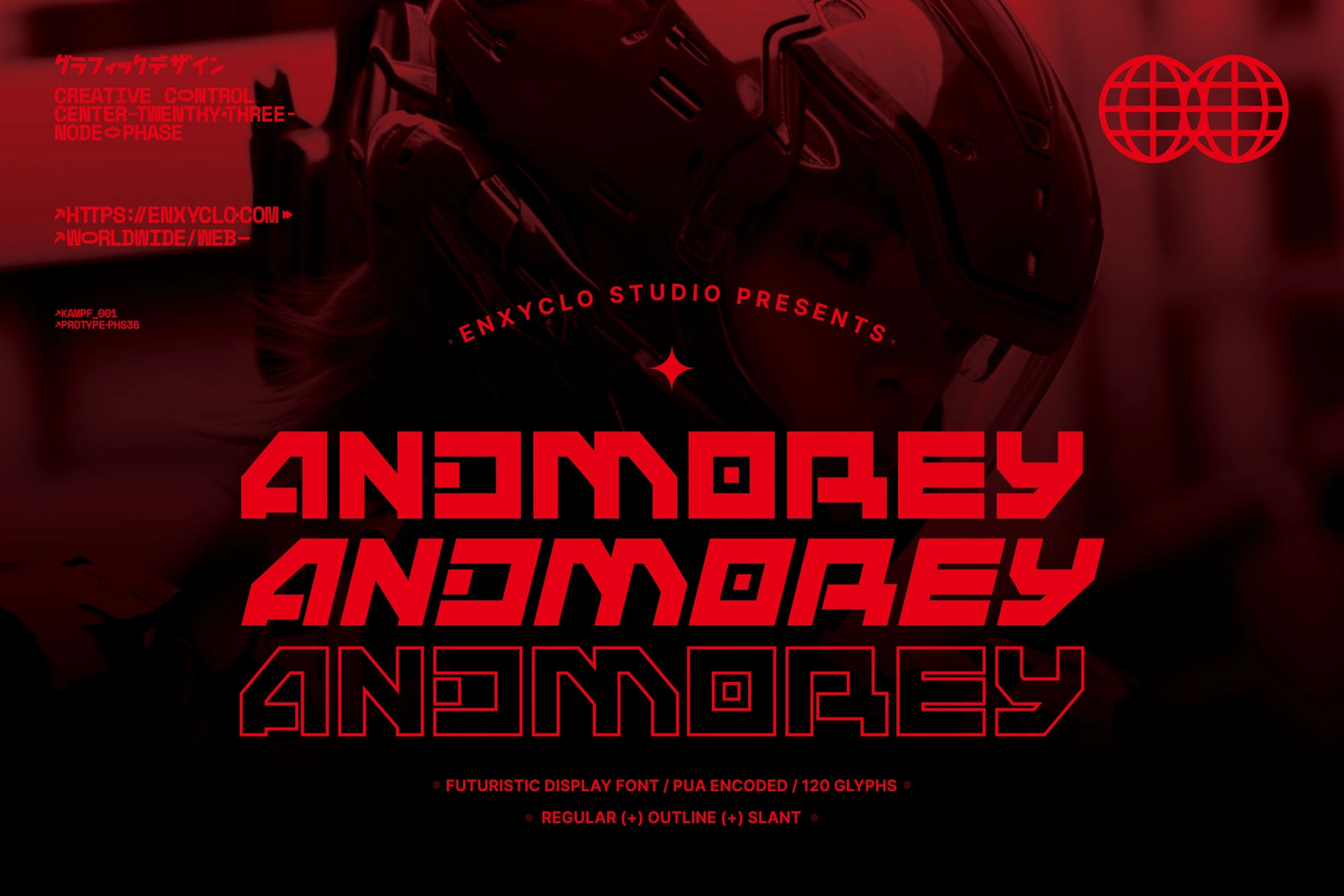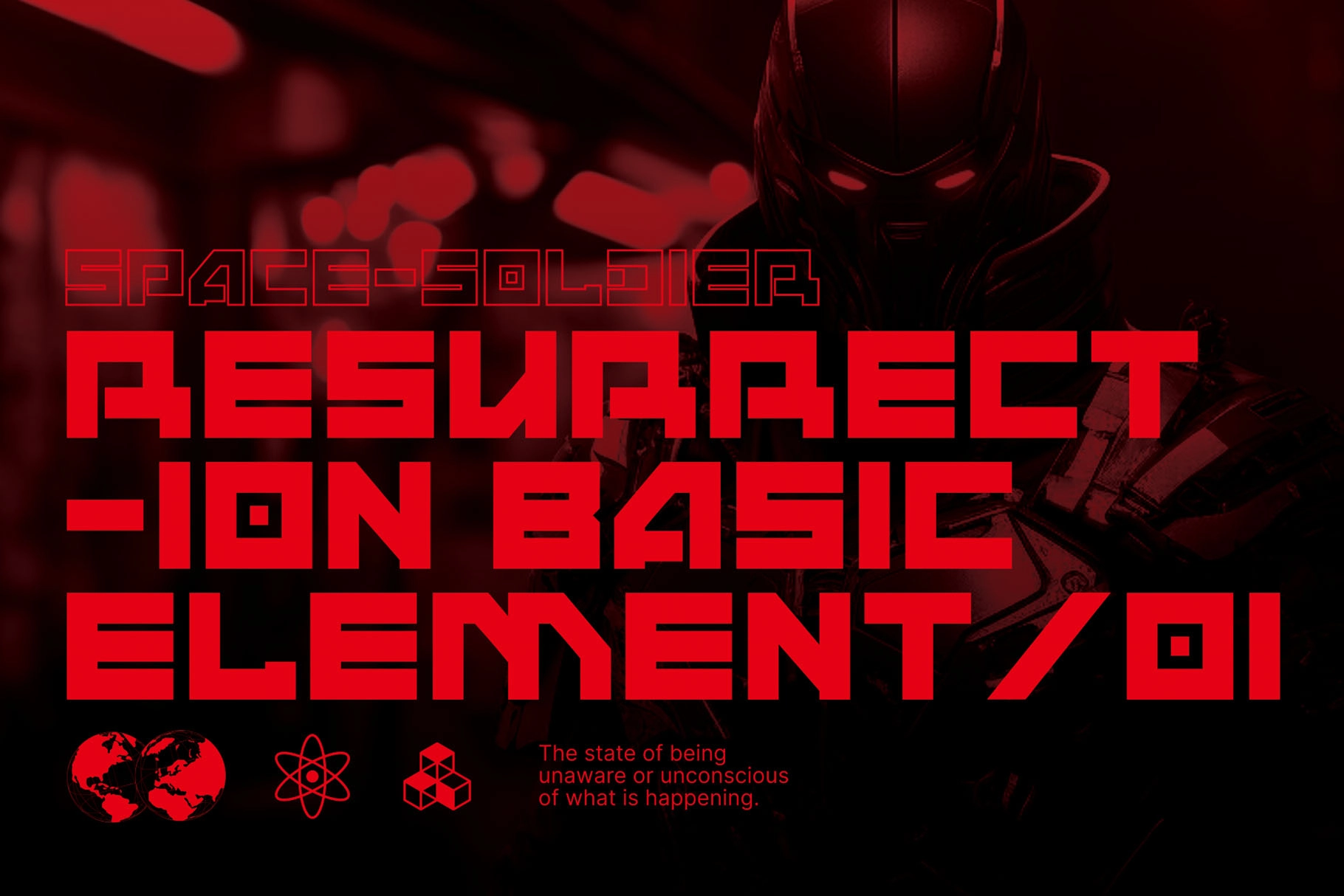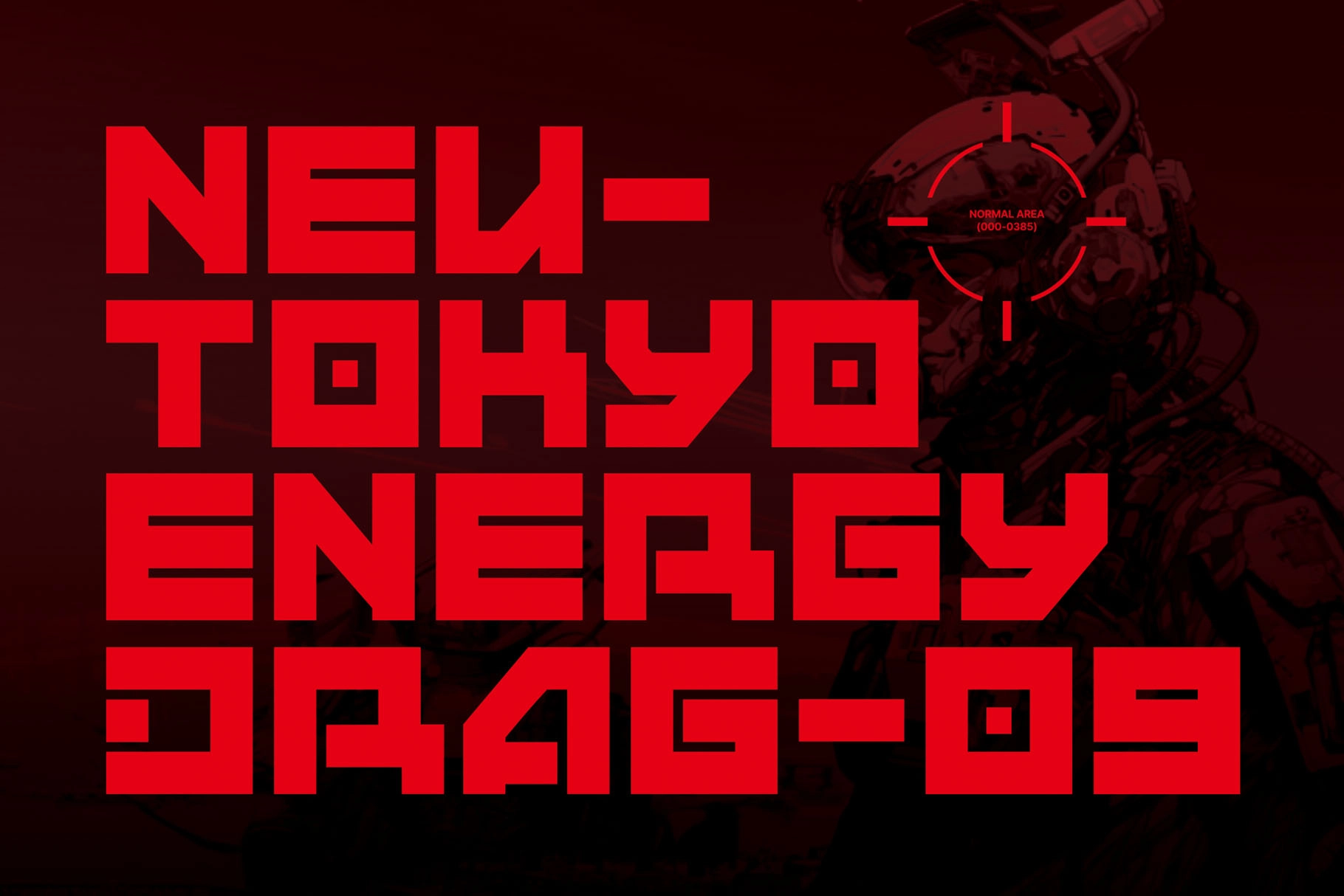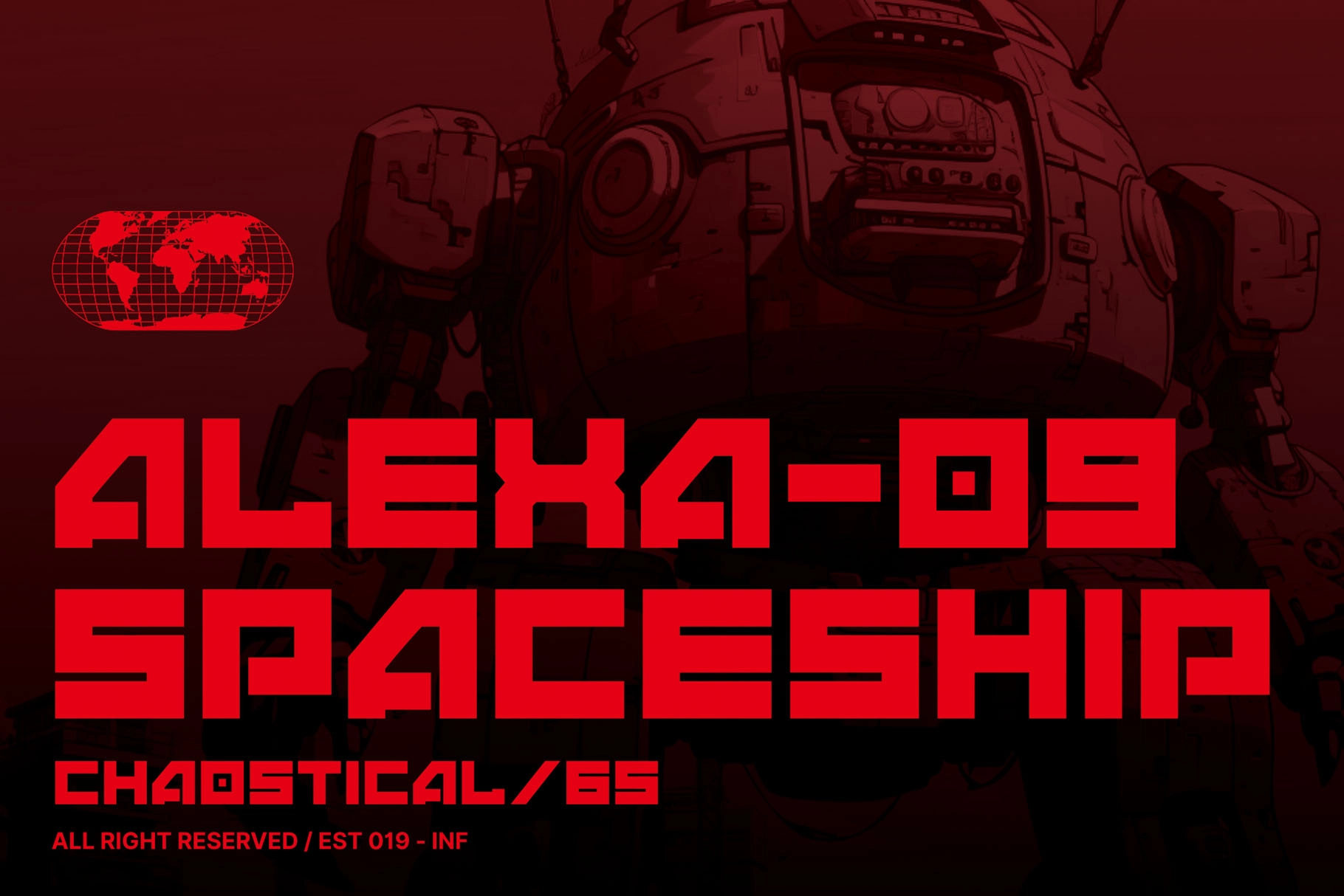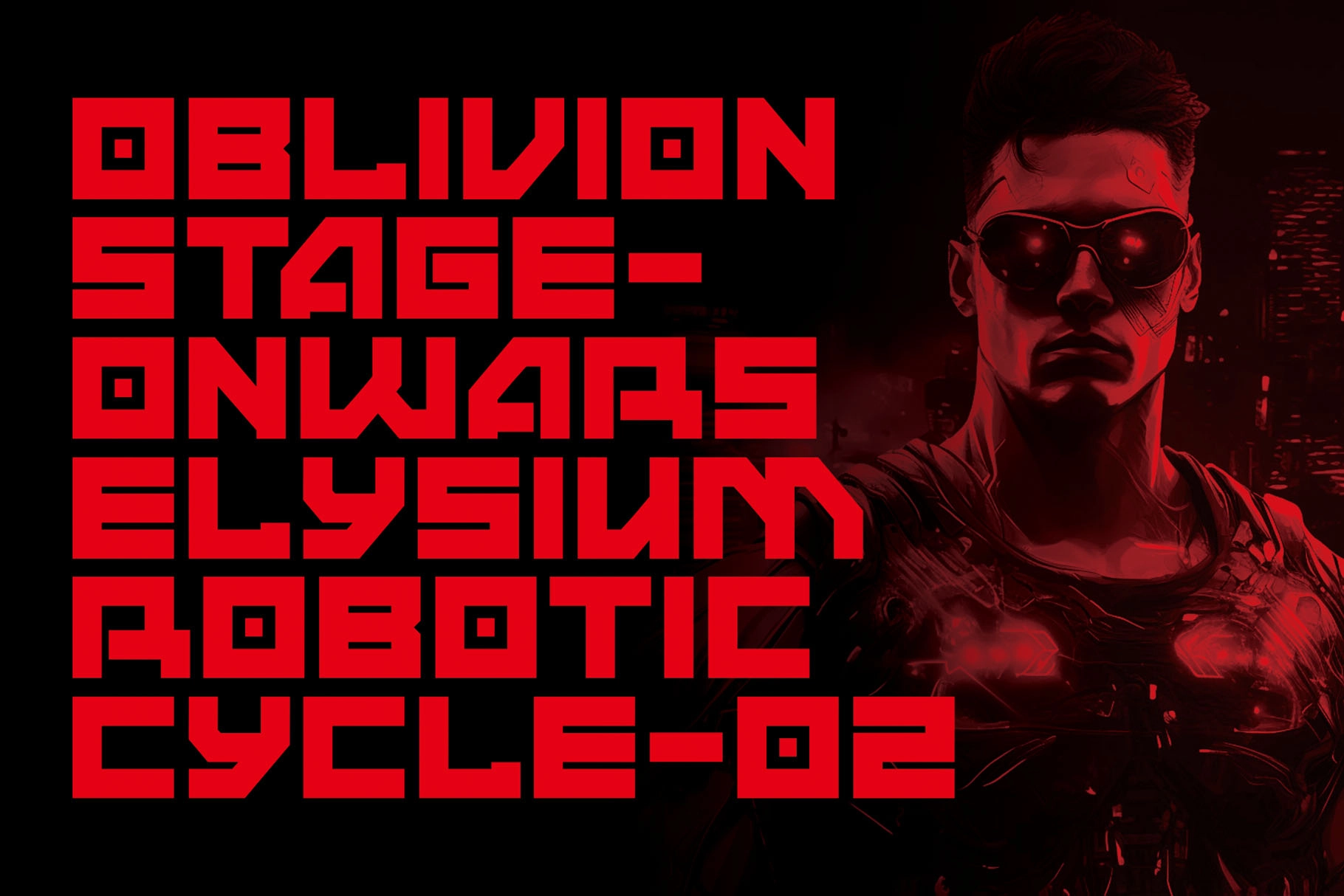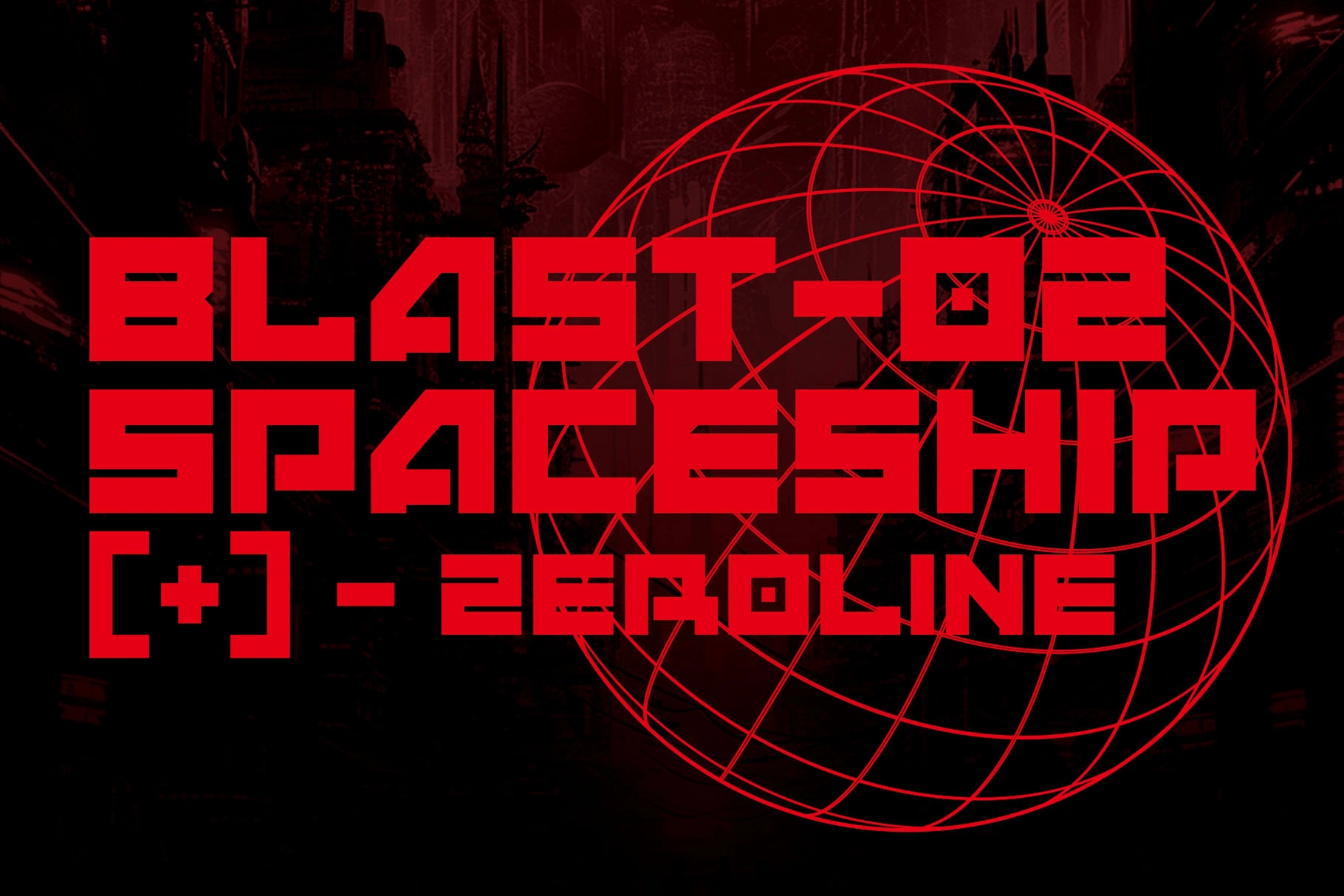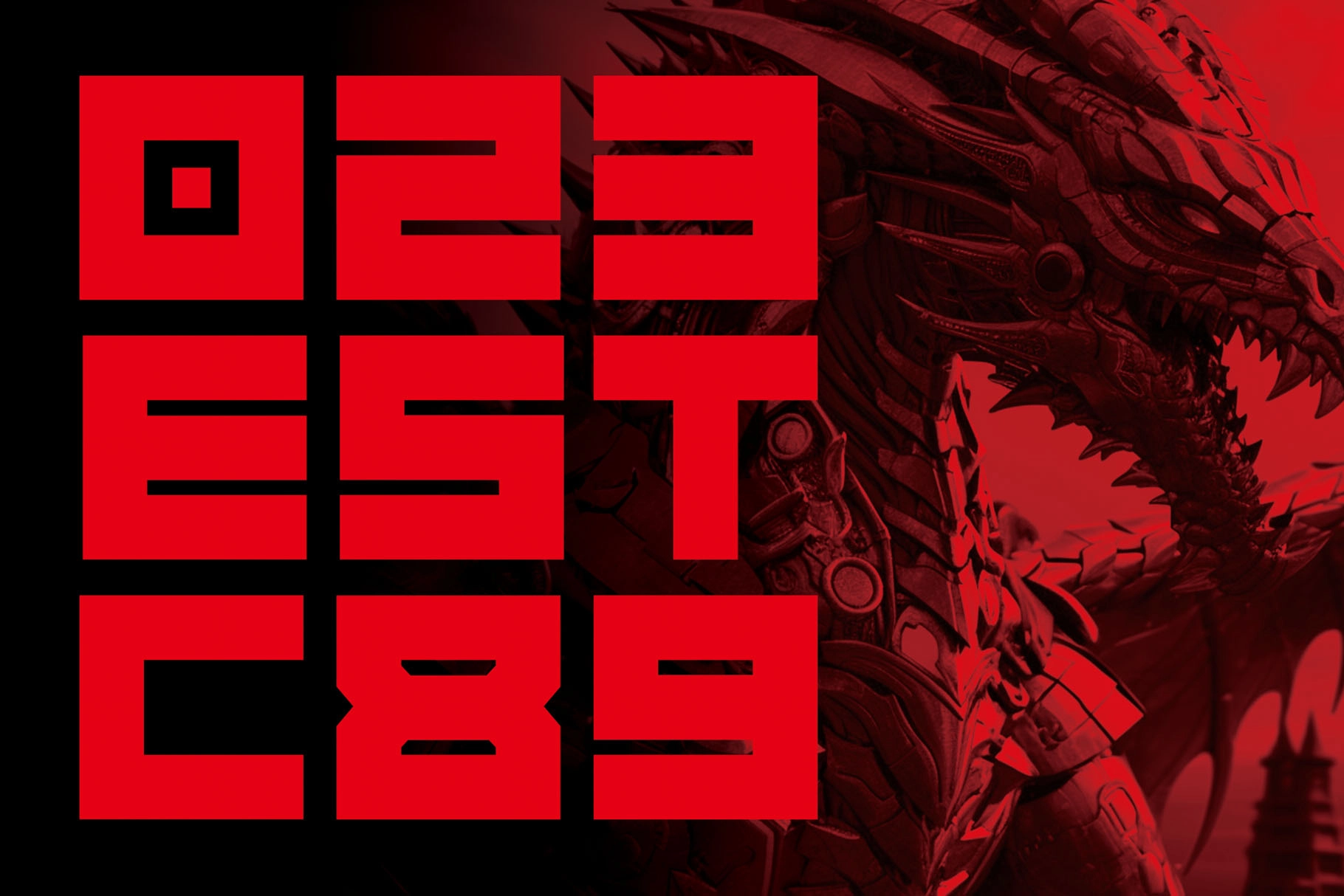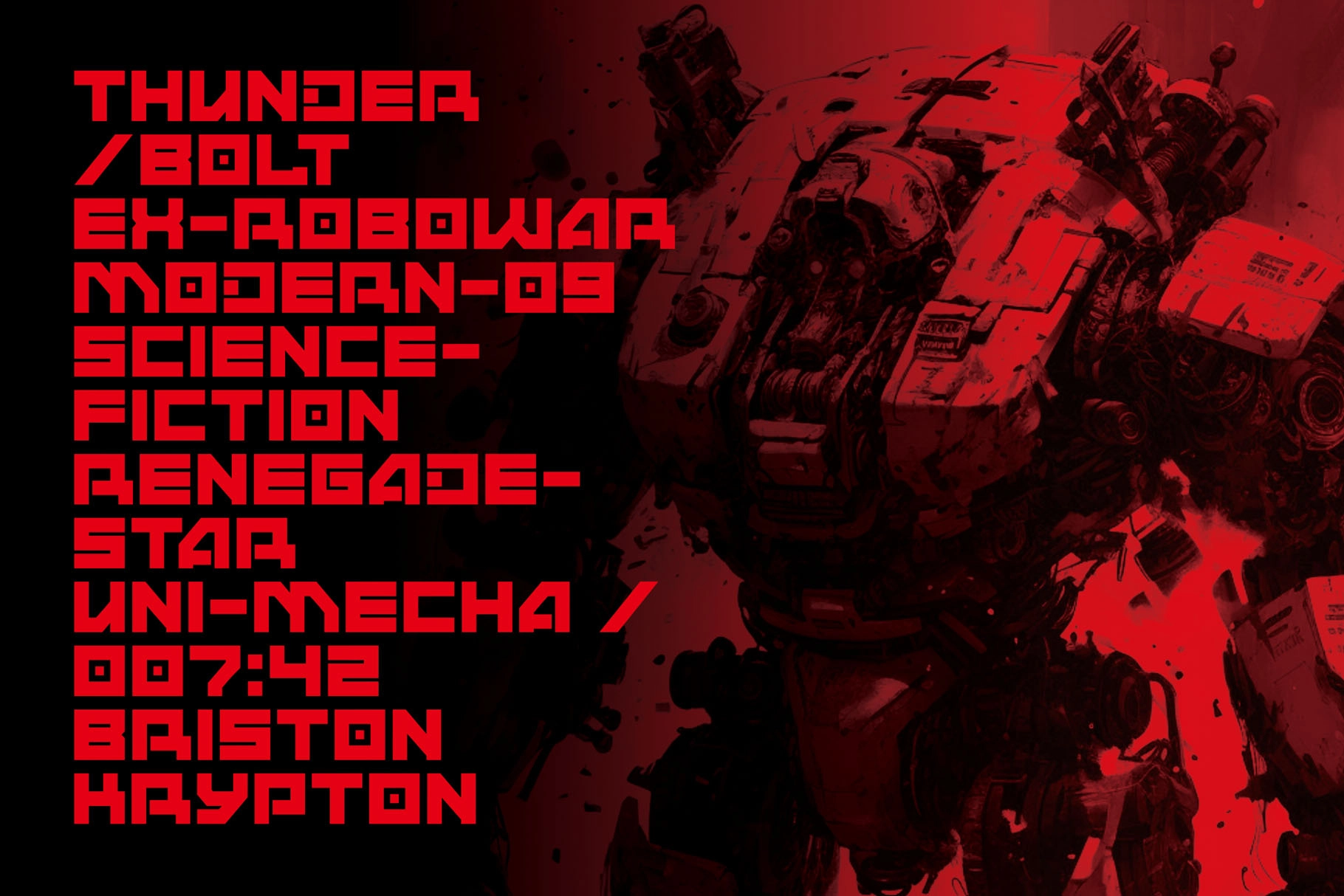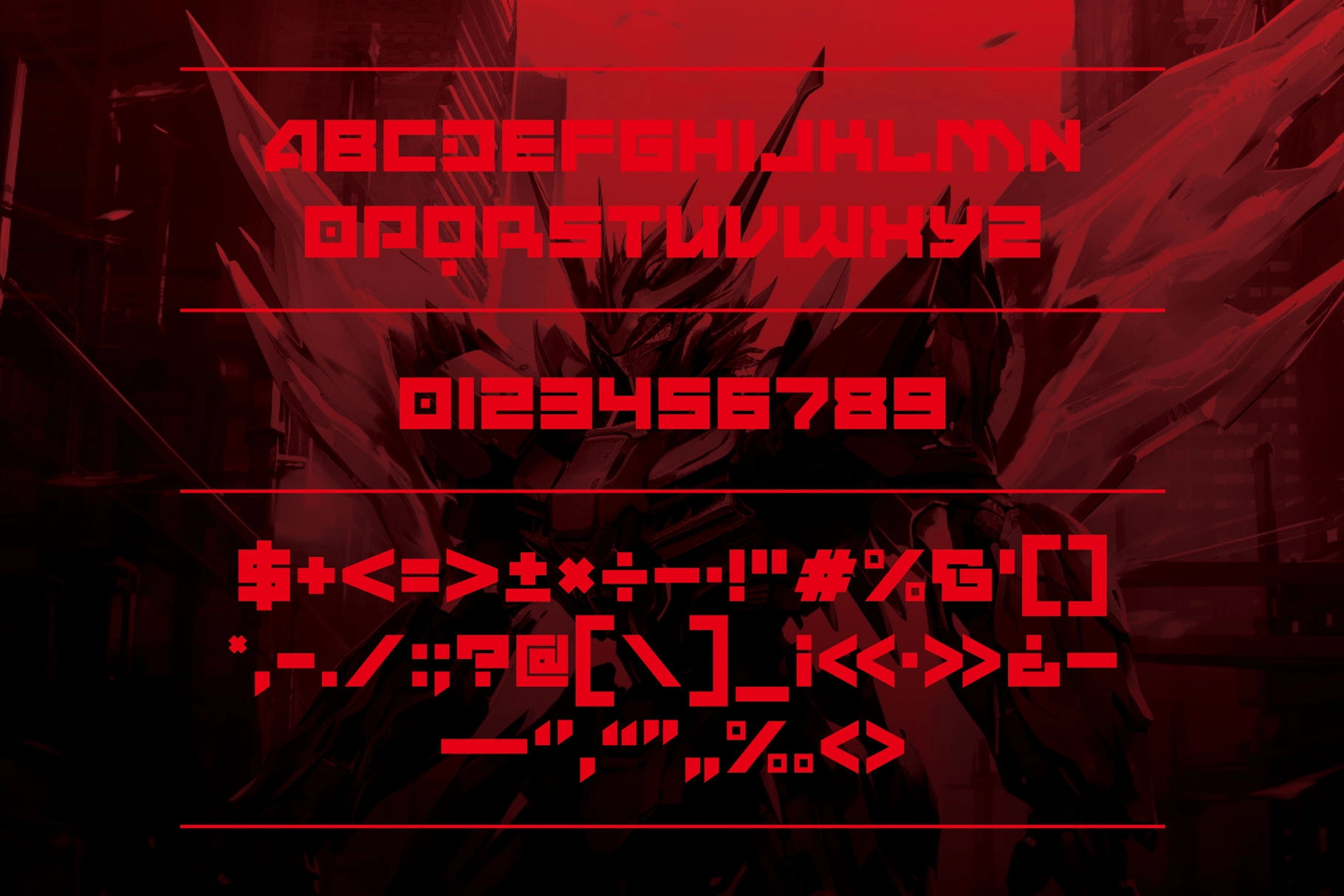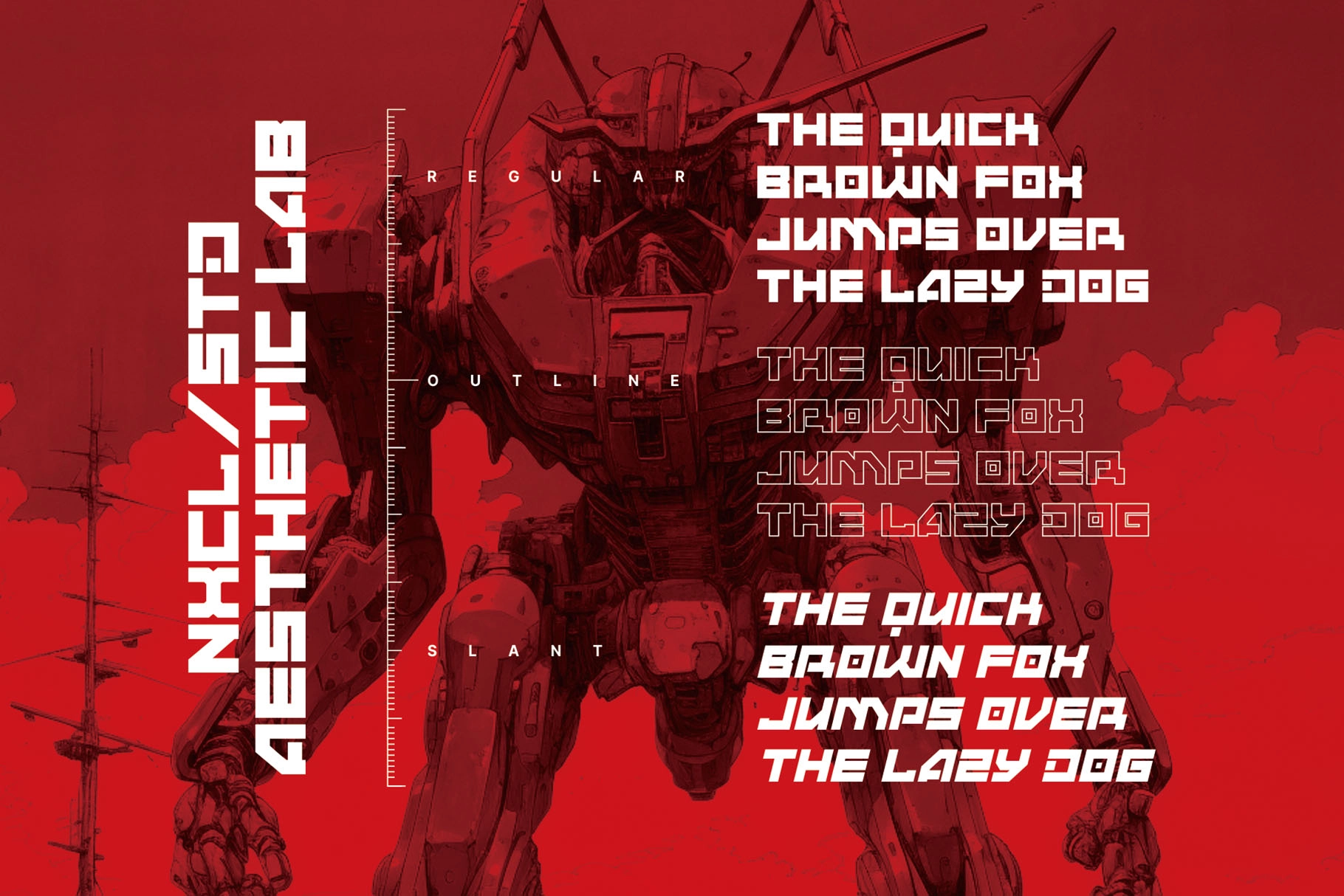
Andmorey - Futuristic Display Font
Andmorey - Futuristic Display Font is a bold cyberpunk-inspired typeface designed to bring a powerful and high-tech aesthetic to your projects. Its sharp geometric forms and futuristic styling make every composition feel modern, dynamic, and visually striking.
Perfect for headlines, posters, branding, websites, and creative visuals, Andmorey delivers a strong digital presence that instantly stands out. Whether used for tech-inspired designs or edgy modern layouts, it adds a distinctive futuristic touch to any project.
• 3 styles: Regular, Outline, Slant
• Uppercase only